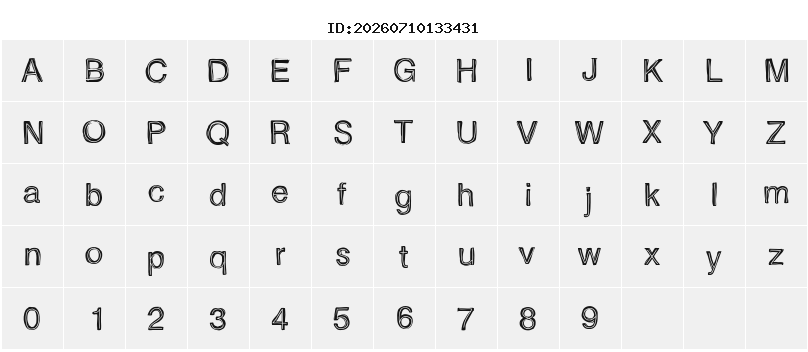
• Font Name: Father Nelson
• Full Font Name: Father Nelson Regular
• Designer: K.Whetstone
• Manufacturer: K.Whetstone
About Father Nelson.ttf
Father Nelson.ttf is a modern, elegant sans-serif font designed for ultimate readability and visual harmony. Perfect for branding, headlines, web design, and print materials.